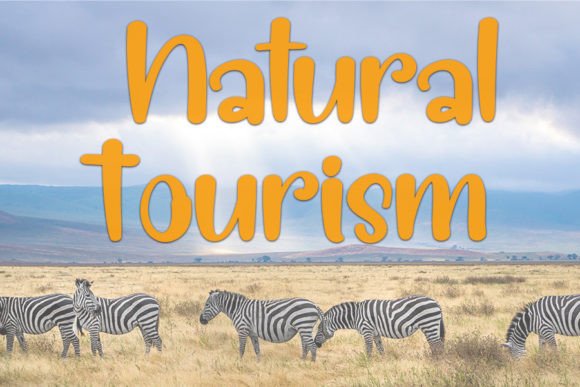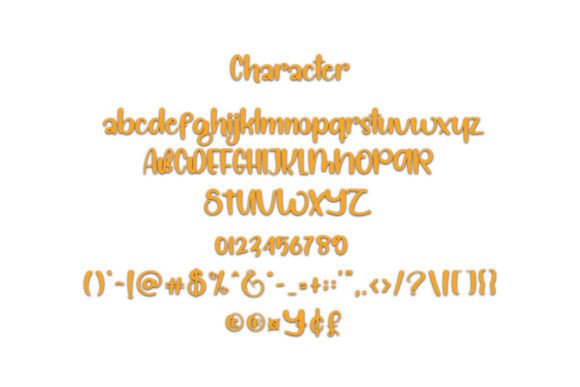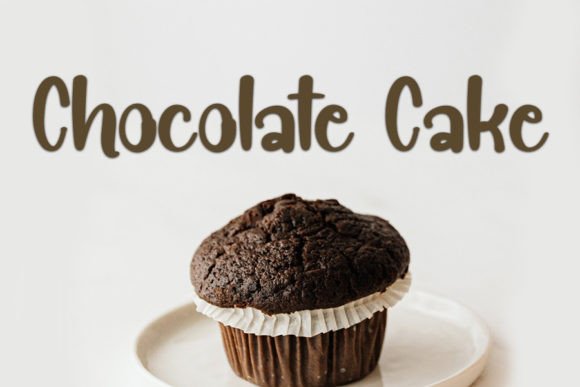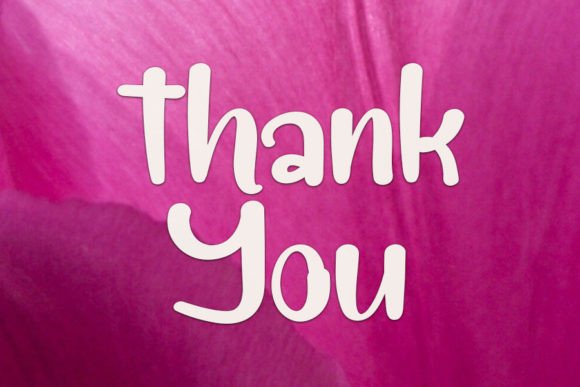
The Perfect Script for Your Next Celebration
As designers, we’ve all been there – stuck in a creative rut, trying to come up with the perfect font to match the mood of our latest project. But what if you’re tasked with designing a birthday card, or a wedding invitation, or even a romantic dinner menu? That’s where the Happy Birthday Font comes in – a charming, handwritten script that’s guaranteed to add a touch of warmth and whimsy to your next design.
This enchanting font has a wide range of applications, from greeting cards to headlines, and is perfect for adding a romantic feel to your next project. Whether you’re a seasoned designer or just starting out, the Happy Birthday Font is a valuable addition to your toolkit – and we’re excited to dive in and explore its many uses.
Key Features of “Happy Birthday Font”
- Unique Characteristics: The font features a playful, cursive design with bold and colorful elements, perfect for creating festive and celebratory content.
Happy Birthday Font Review
Overall, I’m quite satisfied with the Happy Birthday Font. It’s a cheerful, cursive font that’s perfect for creating a festive atmosphere on special occasions.
- Unique and playful design that adds a touch of whimsy to any project.
- Highly customizable, allowing you to adjust the size, color, and style to suit your needs.
- Supports a wide range of languages, making it a great option for international projects.
- Easy to read and understand, even at small font sizes.
- Not ideal for formal or professional projects, as it may come across as too casual or playful.
- May not be suitable for projects requiring a high level of legibility or readability, such as body text or captions.
- Some users may find the font too ornate or distracting, which could be a drawback for those who prefer a more minimalist design.
The Happy Birthday Font is a fun and creative option for projects that require a touch of personality and flair. While it may not be suitable for every project, it’s a great choice for occasions like birthday parties, weddings, or other celebrations.
Getting the Most Out of the Happy Birthday Font
For the most impact, use the Happy Birthday font in bold or italic styles, and pair it with bright, contrasting colors. Consider using it for headings or titles to add a celebratory feel.
The Happy Birthday font is perfect for:
- Birthday invitations and cards
- Party decorations and signage
- Special occasion graphics and templates